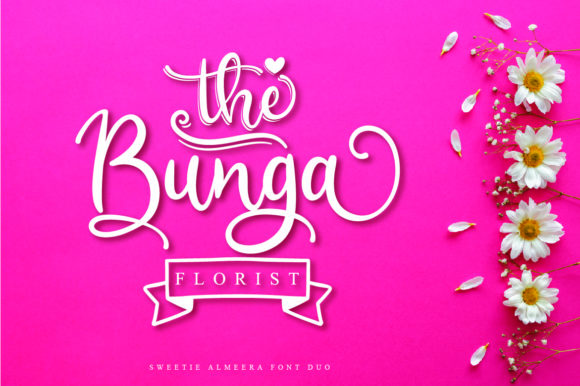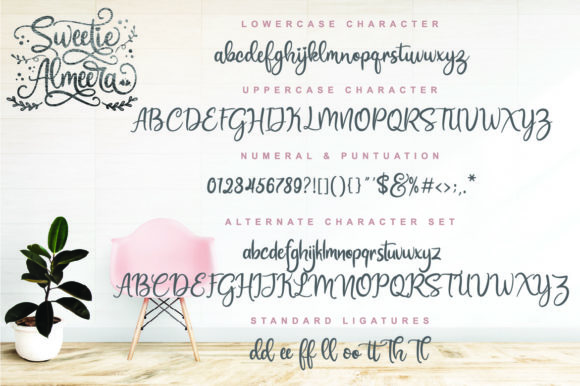
Sweetie Almeera Font
db-ku.com - Script & Handwritten -- Sweetie Almeera is a cute and fun feel, perfect for any design that requires a cool and authentic feel.